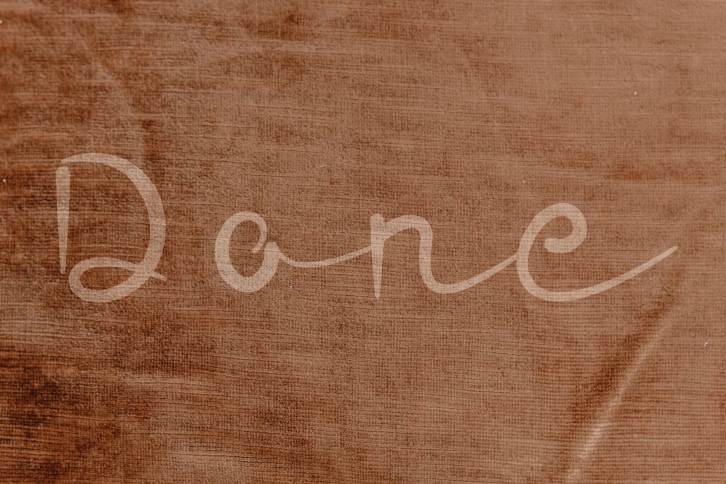
Done is a lovely, relaxed brushed script font. it can be matched to a wide range of designs, both formal and informal, so add it confidently and you will love the outcome.